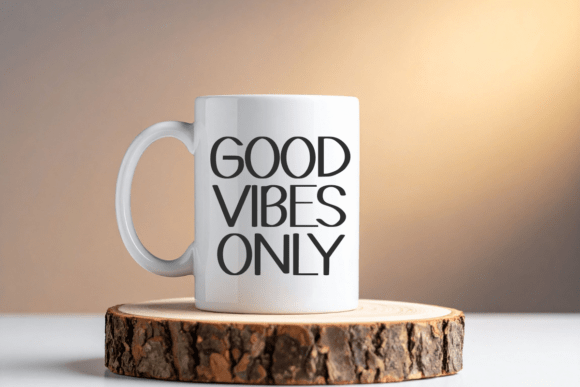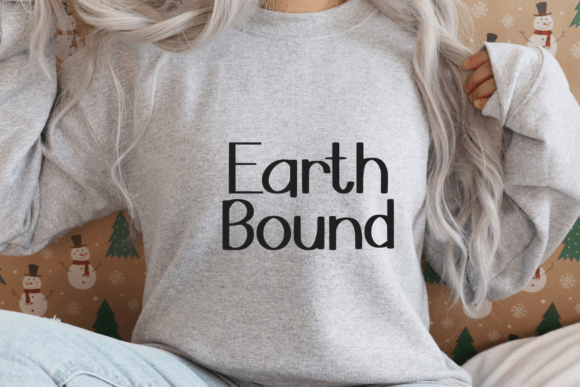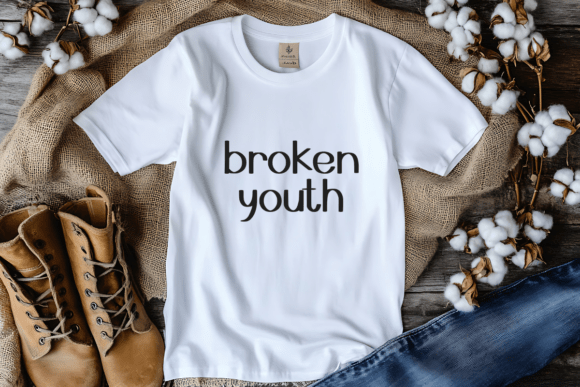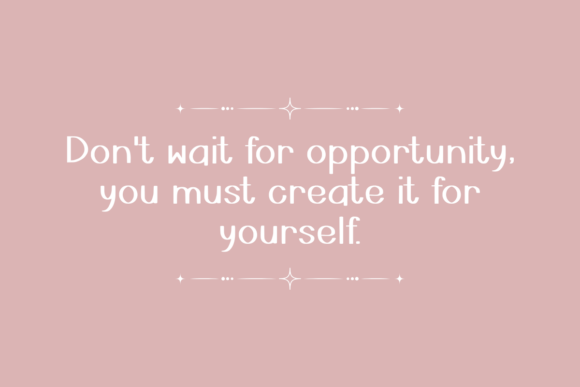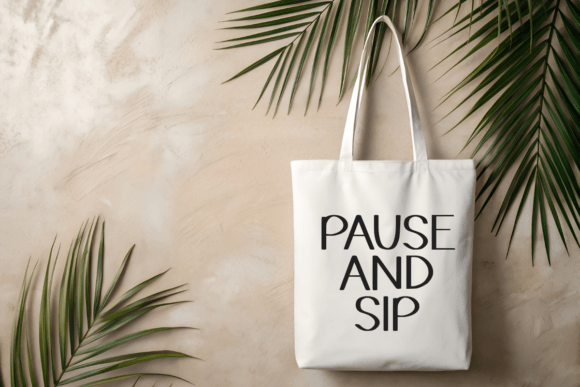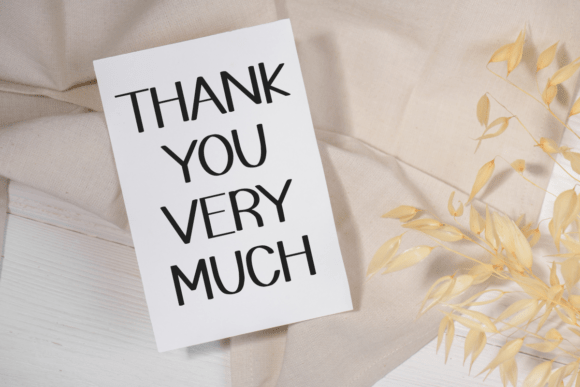
The Breathe Font: A Soft, Friendly, and Natural Addition to Your Design Arsenal
I’ll never forget the moment I stumbled upon the Breathe font. I was working on a craft project for my niece’s birthday, and I was struggling to find the perfect handwritten font to use for her coloring pages and stickers. I wanted something that felt warm, friendly, and natural – something that would make her feel like she was creating something special. That’s when I discovered Breathe, and it instantly became my go-to font for all things crafty and fun.
A Personal Review of Breathe Font
So, what makes Breathe font so special? Let’s dive into the good stuff! 😊
- ✨ Soft and friendly look: Breathe font has a gentle, approachable feel that’s perfect for kids’ projects, planners, and DIY designs.
- ✅ Easy to read: The simple strokes and smooth curves make it easy on the eyes, even for younger readers.
- 💕 Perfect for crafting: Breathe font is designed with crafters in mind, making it a great choice for Cricut and Silhouette projects.
- 🎨 Versatile: Use it for quotes, greeting cards, labels, coloring pages, worksheets, bullet journals, scrapbooks, and more!
Of course, no font is perfect, and Breathe has a few minor quirks:
- 🤔 Limited formal styles: Breathe font is designed for informal, handwritten projects, so it may not be the best choice for more formal designs.
- ⚠️ Some letter spacing issues: Occasionally, you may need to adjust the letter spacing to get the perfect look.
One of the best things about Breathe font is its OpenType features and glyphs. These allow you to add extra visual interest to your designs and make them more engaging. Some common OpenType features to explore include:
- Ligatures: These are special character combinations that can add a touch of elegance to your text.
- Stylistic alternates: These allow you to swap out certain characters for alternative designs, adding visual interest to your text.
- Glyphs: These are special characters that can add extra flair to your designs, such as decorative borders or icons.
The Story Behind Breathe Font
Breathe font was designed with crafters and creative hobbyists in mind. The designer wanted to create a font that felt soft, friendly, and natural – something that would bring a warm, handcrafted feel to DIY projects. With its simple strokes and smooth curves, Breathe font is perfect for anyone who loves handmade designs.
| What is Breathe font best used for? | Breathe font is perfect for craft projects, planners, stickers, kids’ worksheets, classroom printables, and DIY designs. |